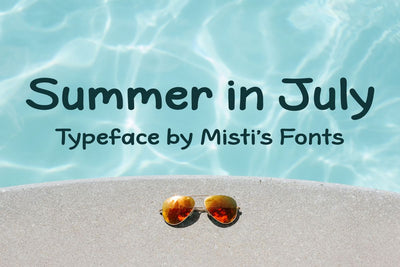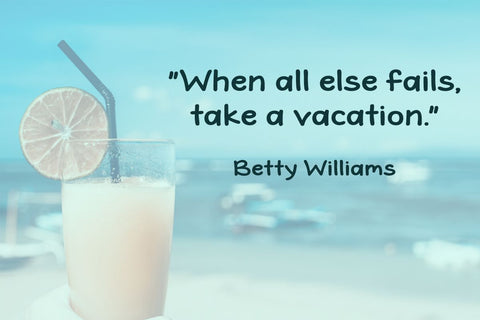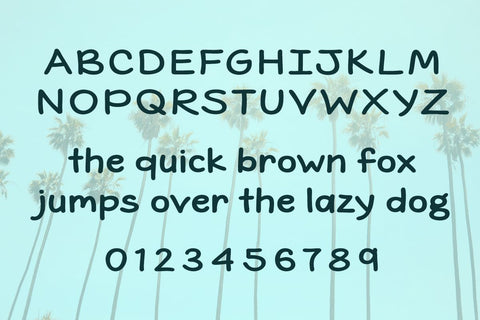
Summer in July
Summer in July is a clean, simple handwritten font that captures the carefree spirit of sunny days. Perfect for quotes, logos, invitations, and more—this versatile font brings a warm, personal touch to any project. Light, breezy, and effortlessly charming.